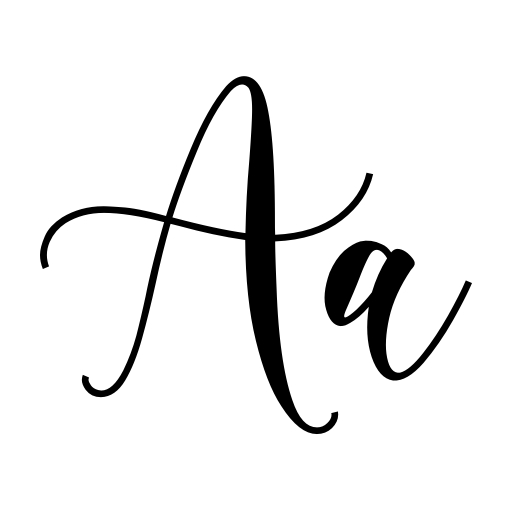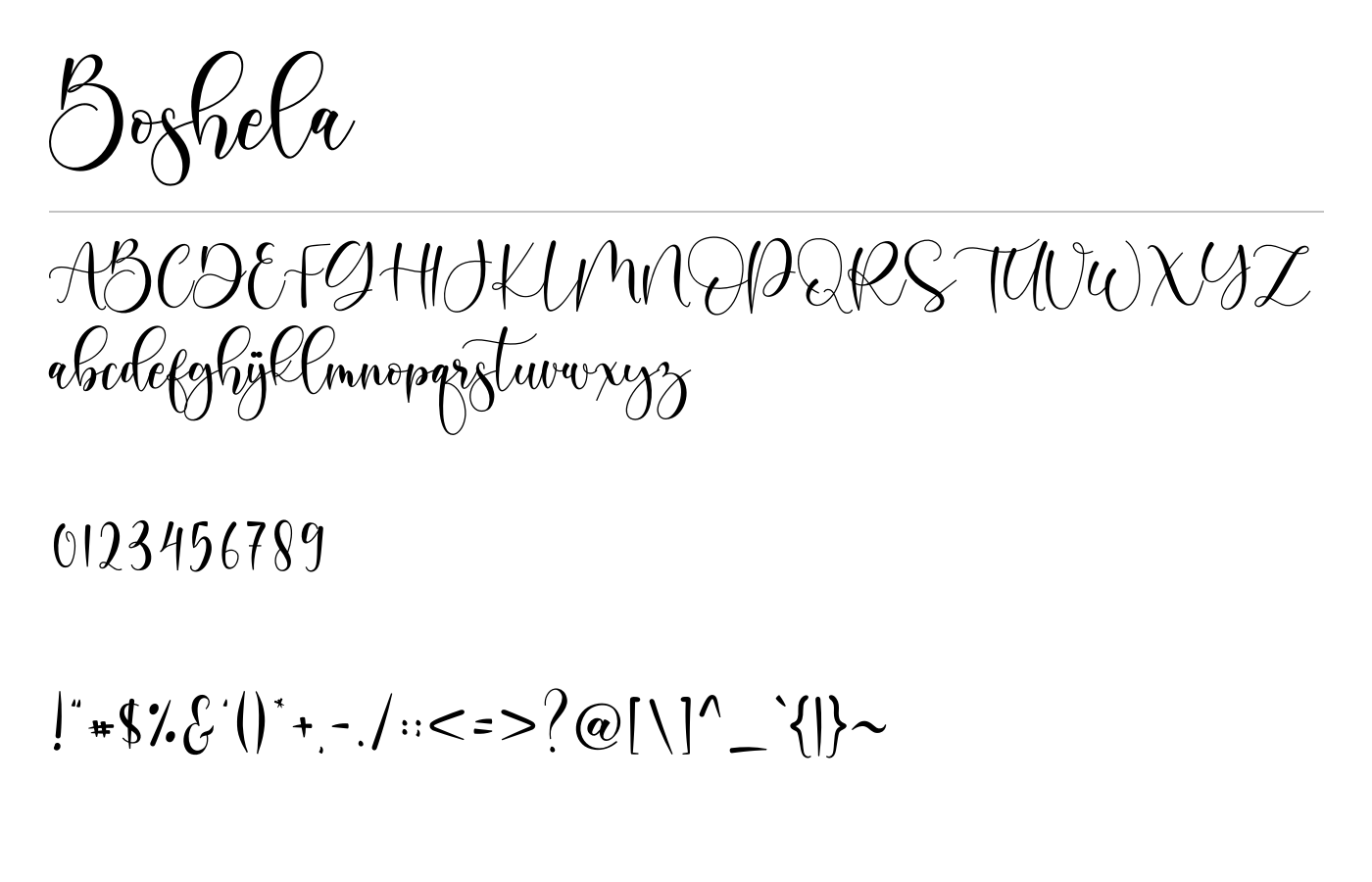
Boshela is an elegant script font with flowing, calligraphic strokes that convey a sense of sophistication and playfulness. Its high contrast between thick and thin lines, along with decorative swashes and loops, makes it ideal for wedding invitations, branding, and stylish headlines where a personal, handcrafted feel is desired. This font works beautifully in designs that aim to evoke charm and grace while remaining modern and approachable.
Boshela Font